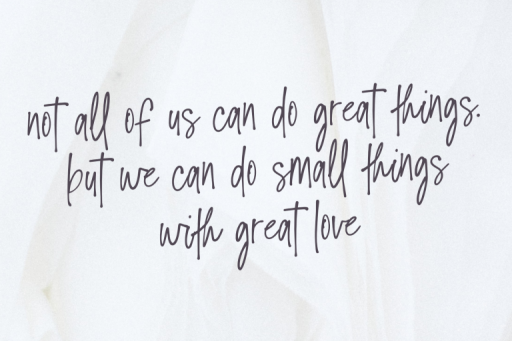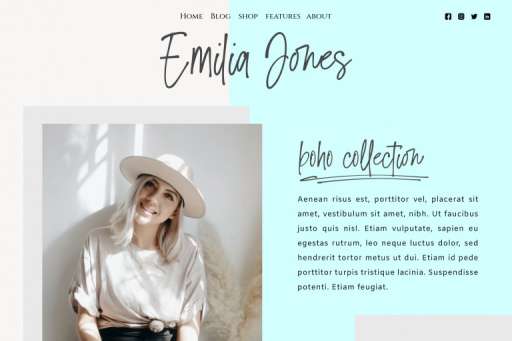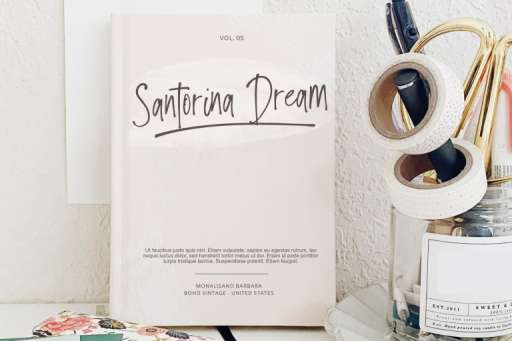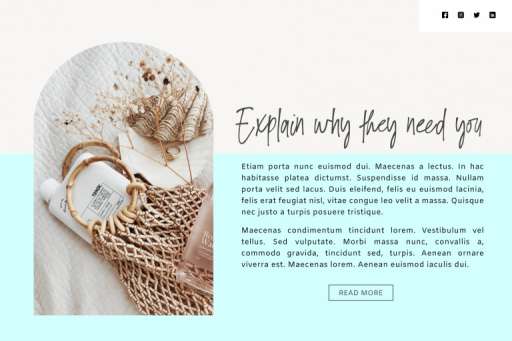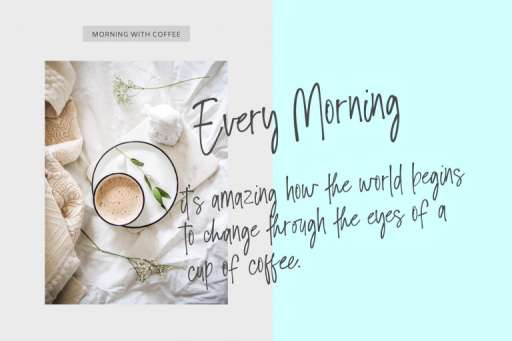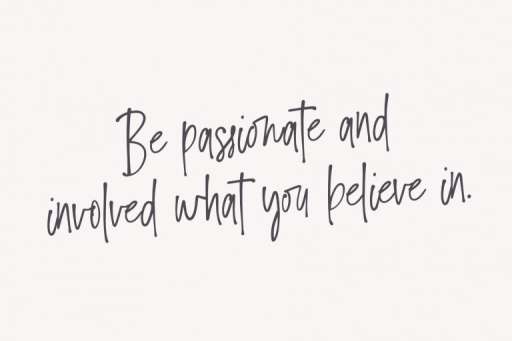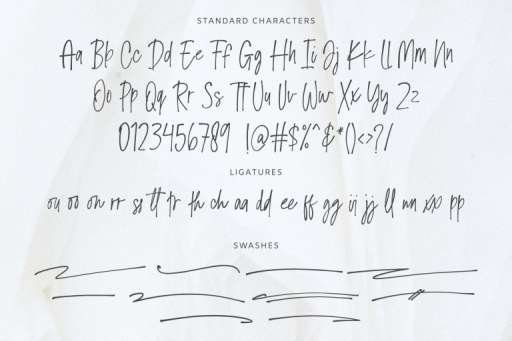
Dandelions Font
Dandelions – Handwritten Modern Font
Dandelions is a handwritten modern font looks so cool for branding, blog, magazine, logo, headlines, wedding invitation, promotion, and other needs.
Dandelions include a full set of uppercase and lowercase letters, multilingual symbols, numerals, punctuation, swashes, and ligatures. easy access to swash by typing aaa,bbb,ccc-jjj.
Dandelions Features :
• Swashes
• Multilingual